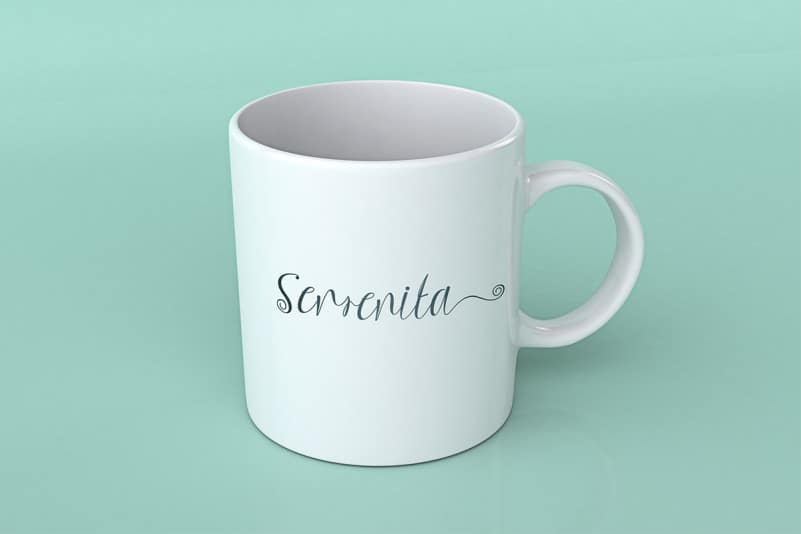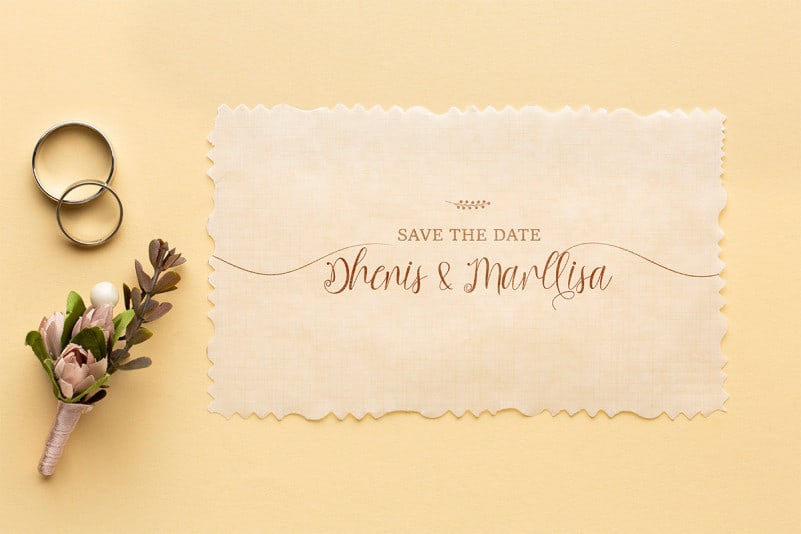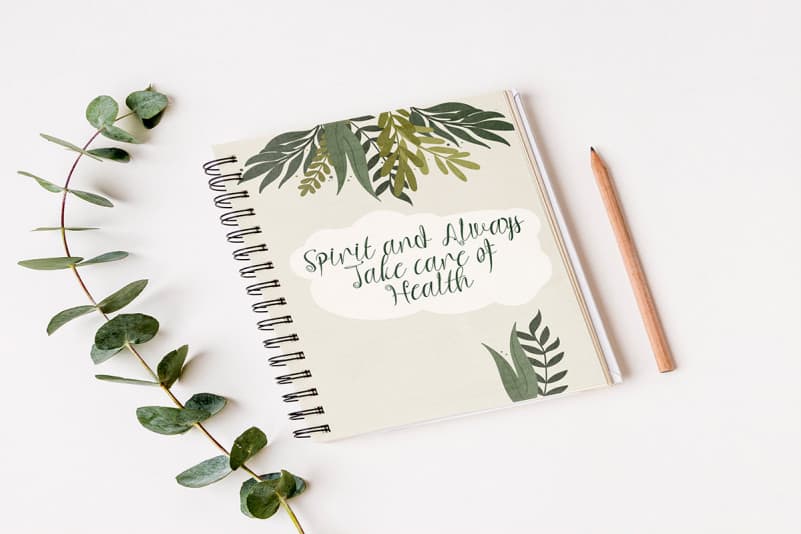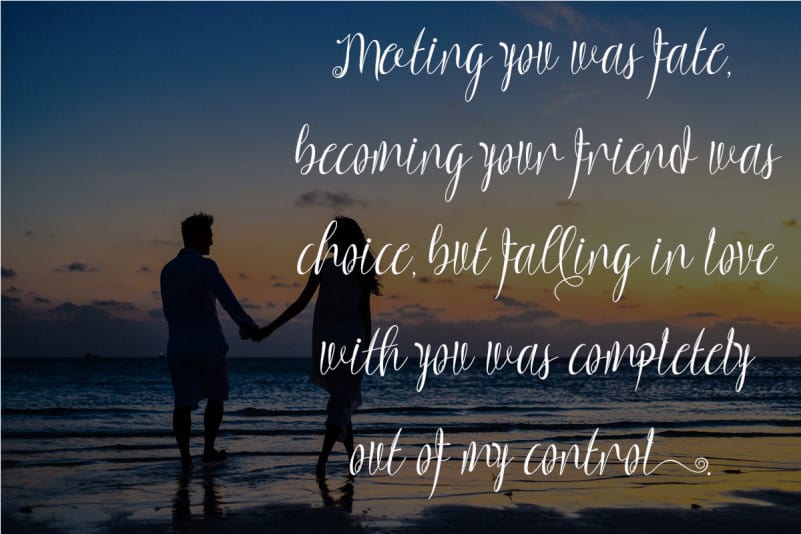
Charllona Calligraphy Font is a very beautiful and unique font. This font is perfect for all types of your work. This font is perfect for all wedding needs (wedding invitations, wedding photography, decorations, and other wedding designs), your business promotion (hotels, villas, vacation spots, products, services or promotion of snacks / beverage products. Also suitable for promo updates, logos, branding, posters, or status updates on social media, making romantic words, or quotes. This font is also equipped with swash, ligature and multilingual.